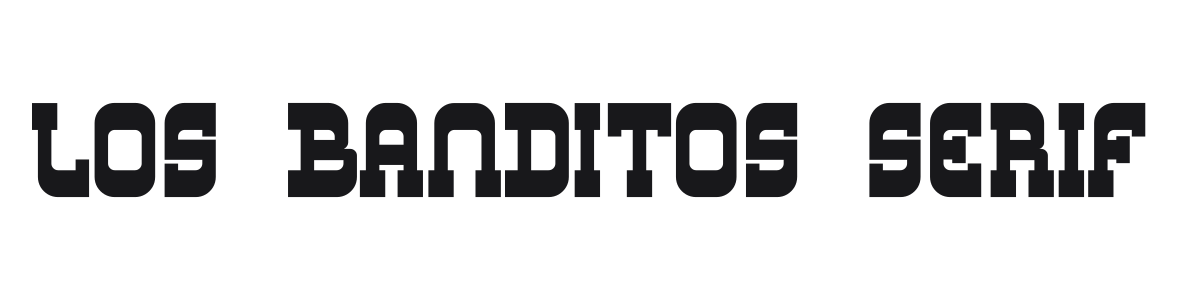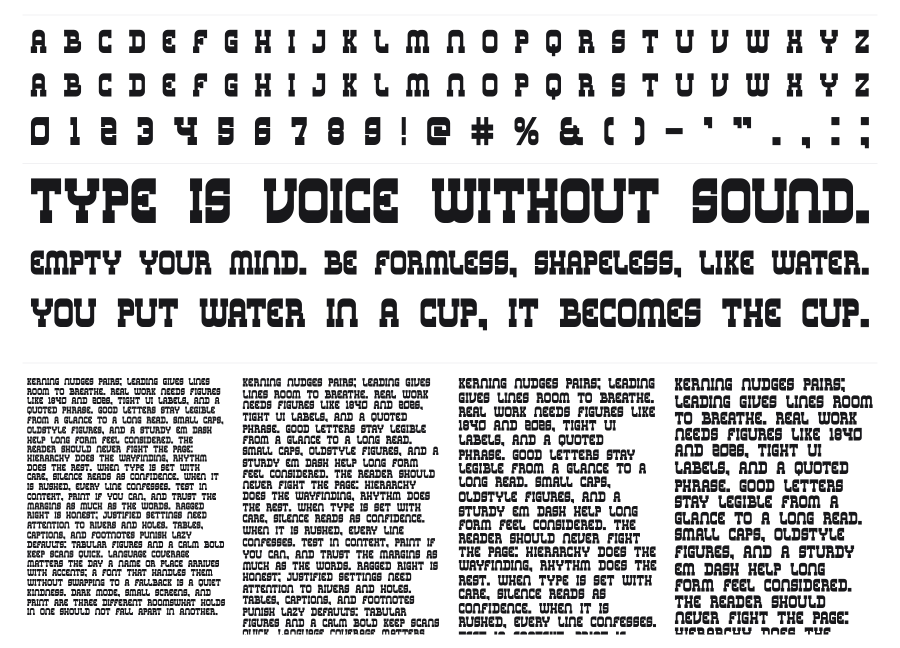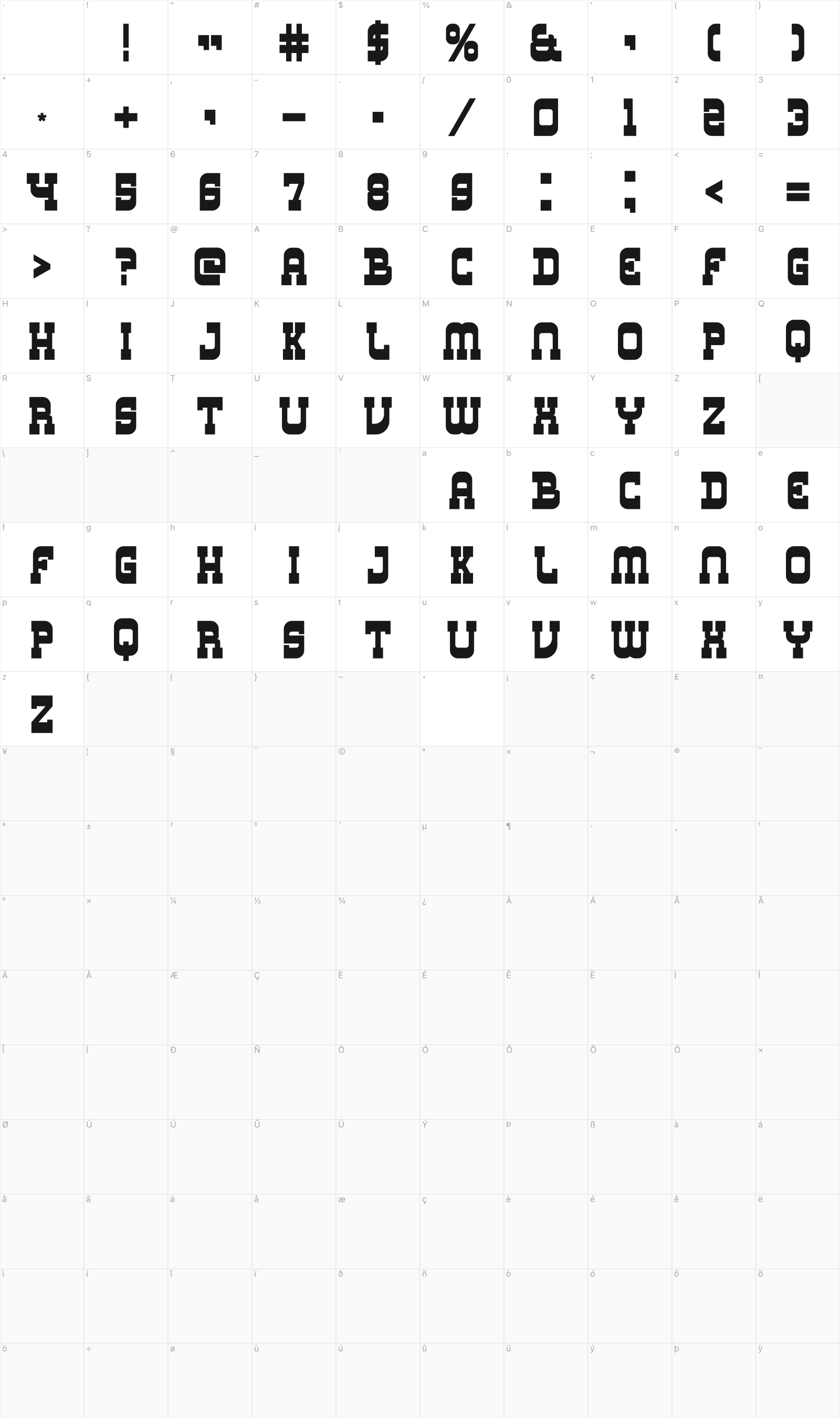
Los Banditos Serif
Los Banditos Serif is a heavy condensed slab-serif built on the tradition of 19th-century Western wood-type display printing. Thick squared serifs, near-monoweight strokes, and tight proportions give it a dense, imposing presence on posters and packaging. It carries the visual grammar of saloon signs and outlaw wanted posters.